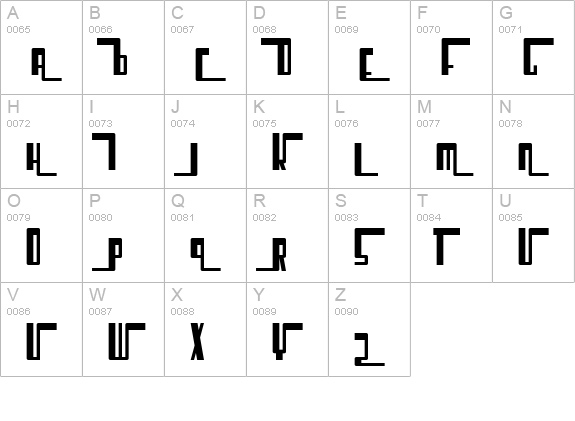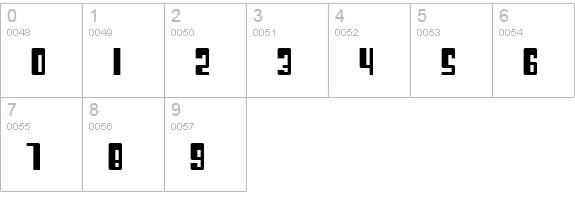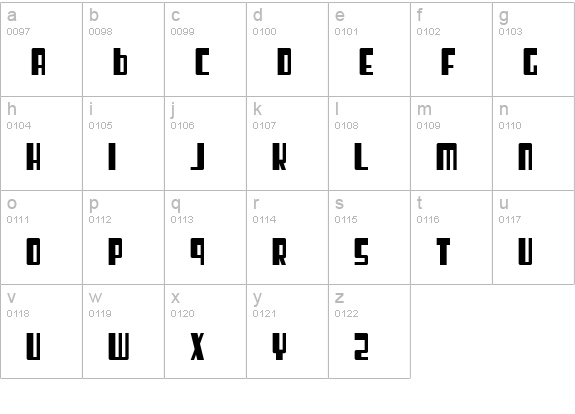
SF Cosmic Age Font Details
Introducing SF Cosmic Age, a captivating and futuristic font that takes you on an interstellar journey through the cosmos. This unique typeface embodies the essence of the cosmic age, with its sleek and modern design inspired by the mysteries of outer space. SF Cosmic Age is more than just a font; it is a portal to a world of unlimited imagination and boundless possibilities. Its bold and dynamic letterforms exude a sense of energy and adventure, making it the perfect choice for any project that aims to push the boundaries of creativity. What sets SF Cosmic Age apart is not only its stunning aesthetics but also its accessibility. This font is freely available to download at FontsMarket.com, allowing designers, artists, and enthusiasts from all walks of life to harness its power and incorporate it into their projects effortlessly. Whether you're designing a space-themed poster, creating a cutting-edge logo, or simply adding a touch of cosmic flair to your personal artwork, SF Cosmic Age is the ultimate tool in your creative arsenal. Its versatility enables it to gracefully adapt to any context, making your designs stand out from the crowd. With SF Cosmic Age, the future is at your fingertips. Experience the captivating allure of the cosmic age with this remarkable font, and unleash your imagination like never before. Download it for free at FontsMarket.com and embark on a cosmic adventure that will leave a lasting impression on your audience.